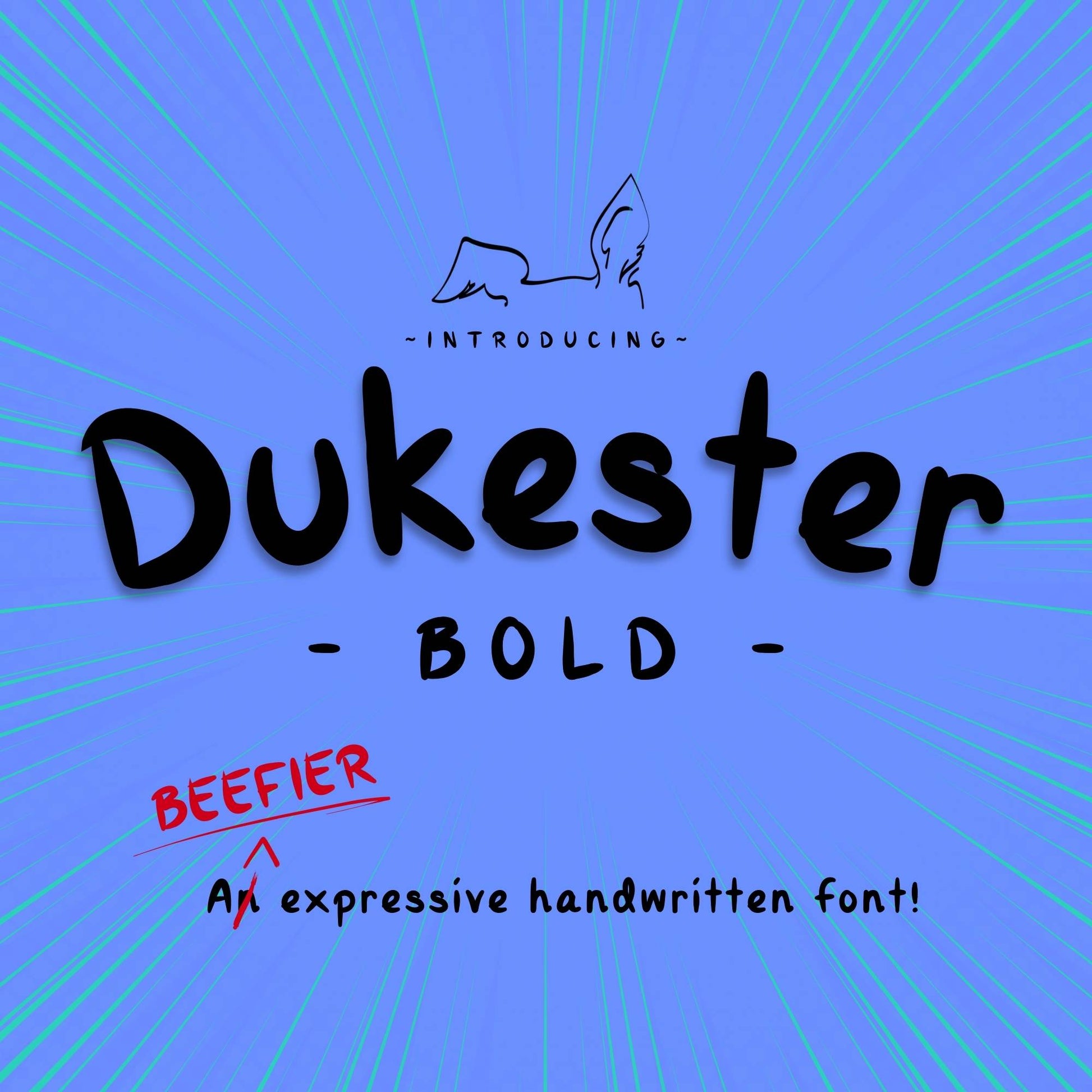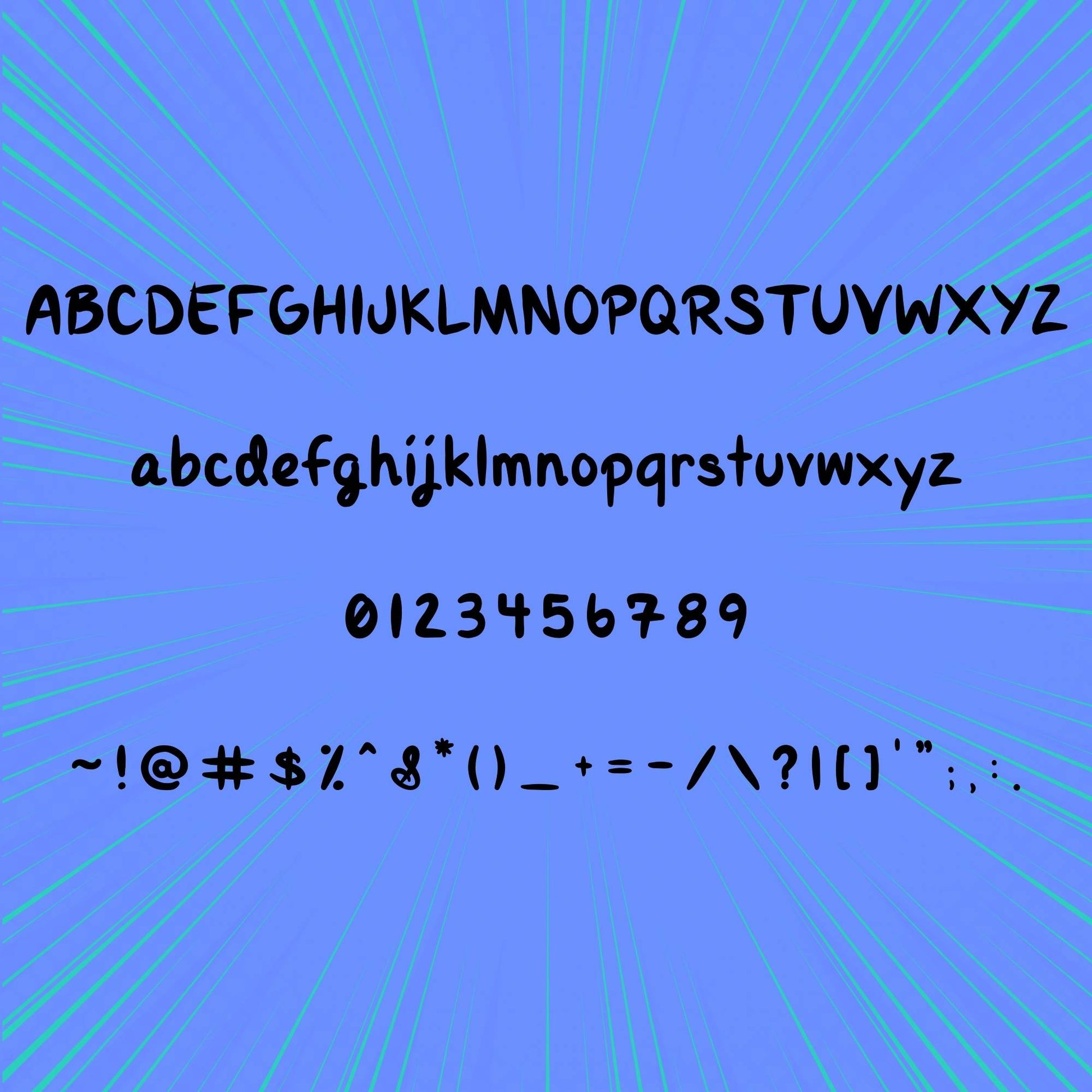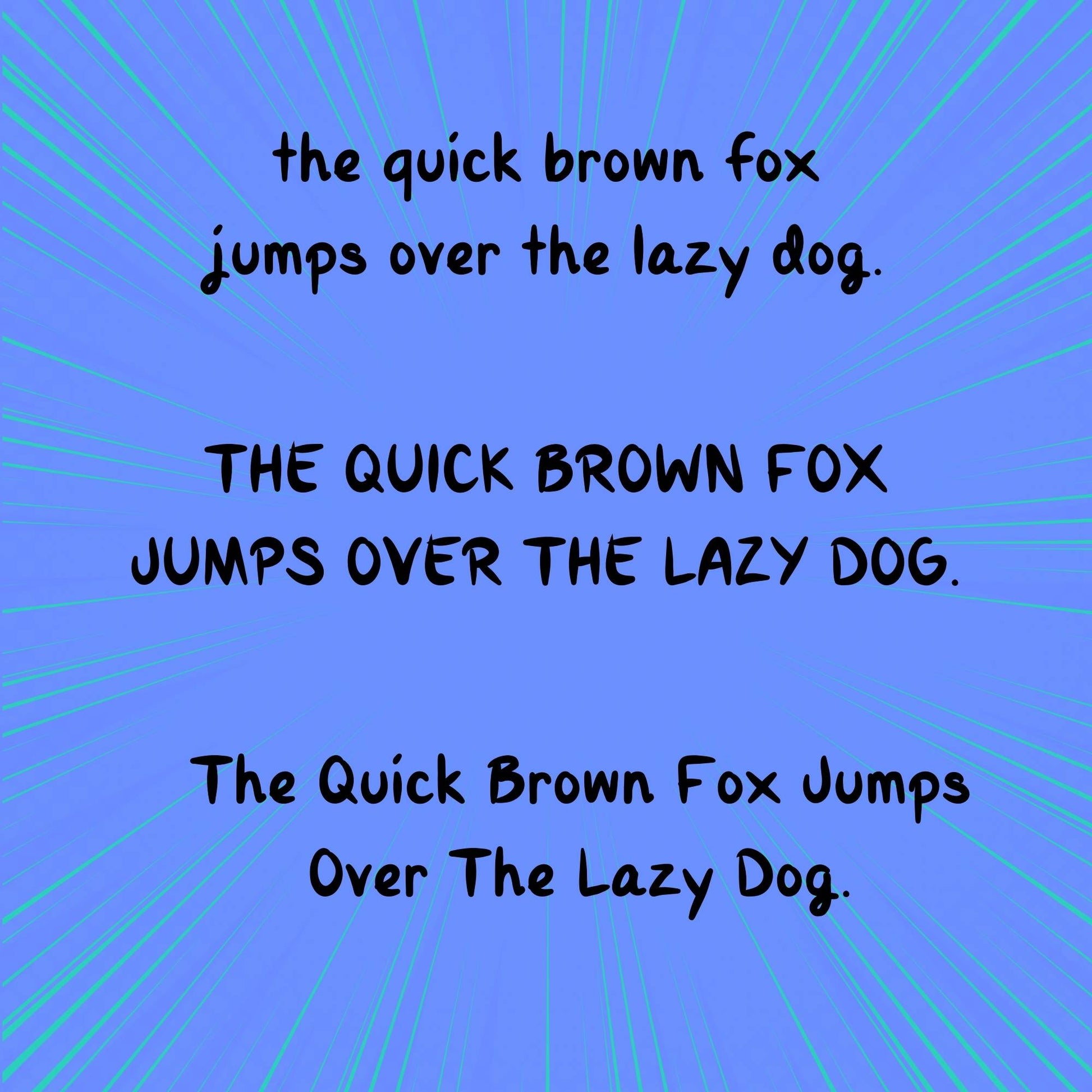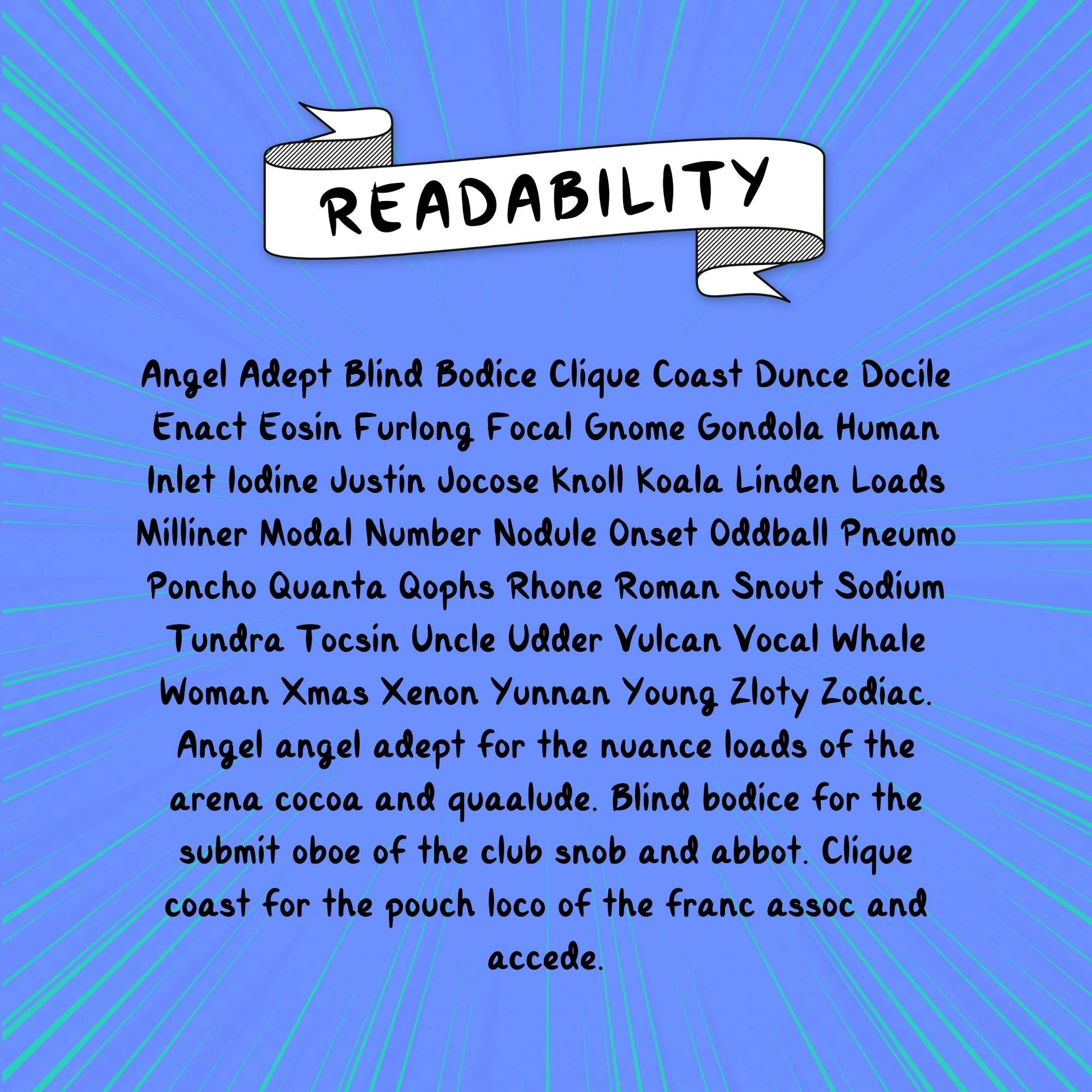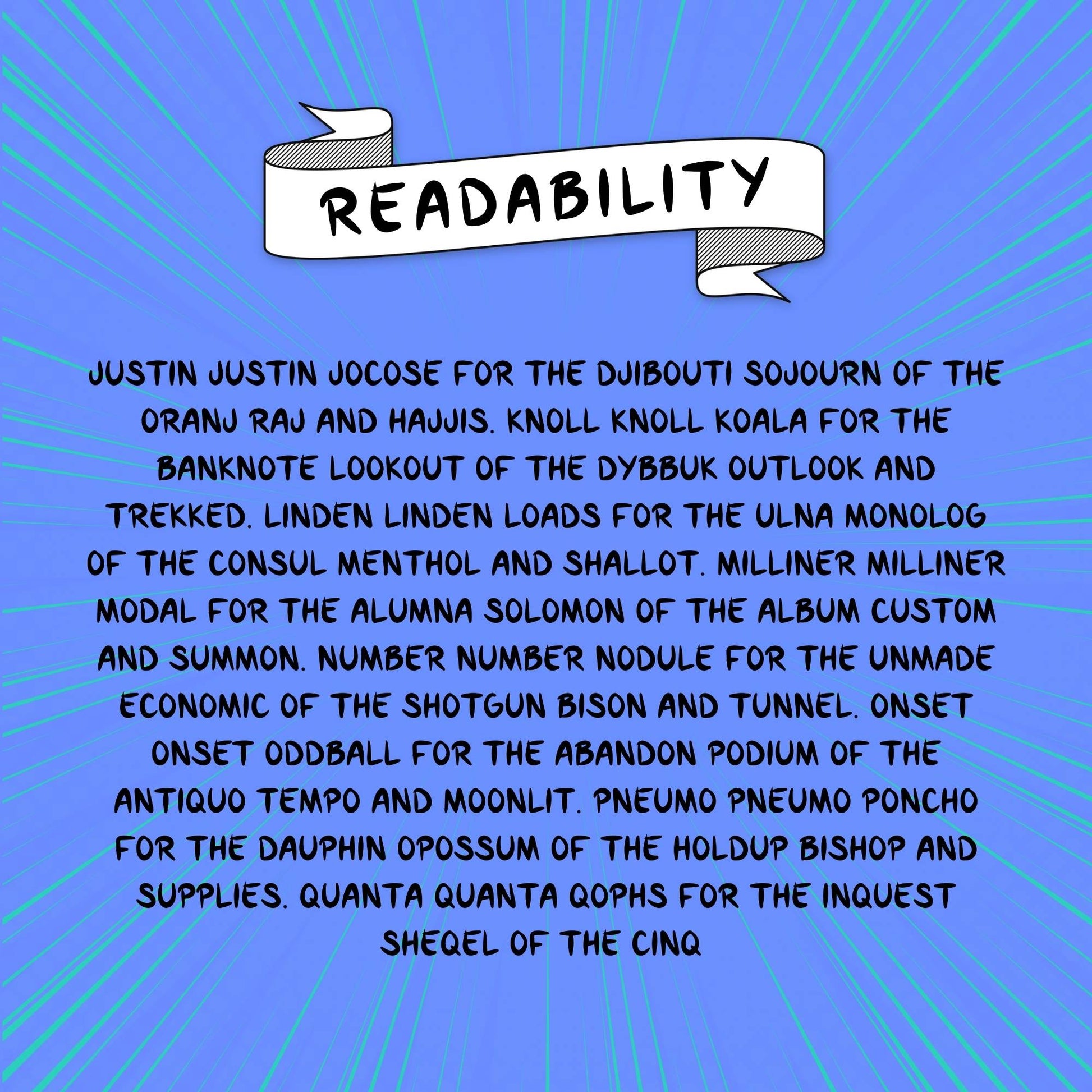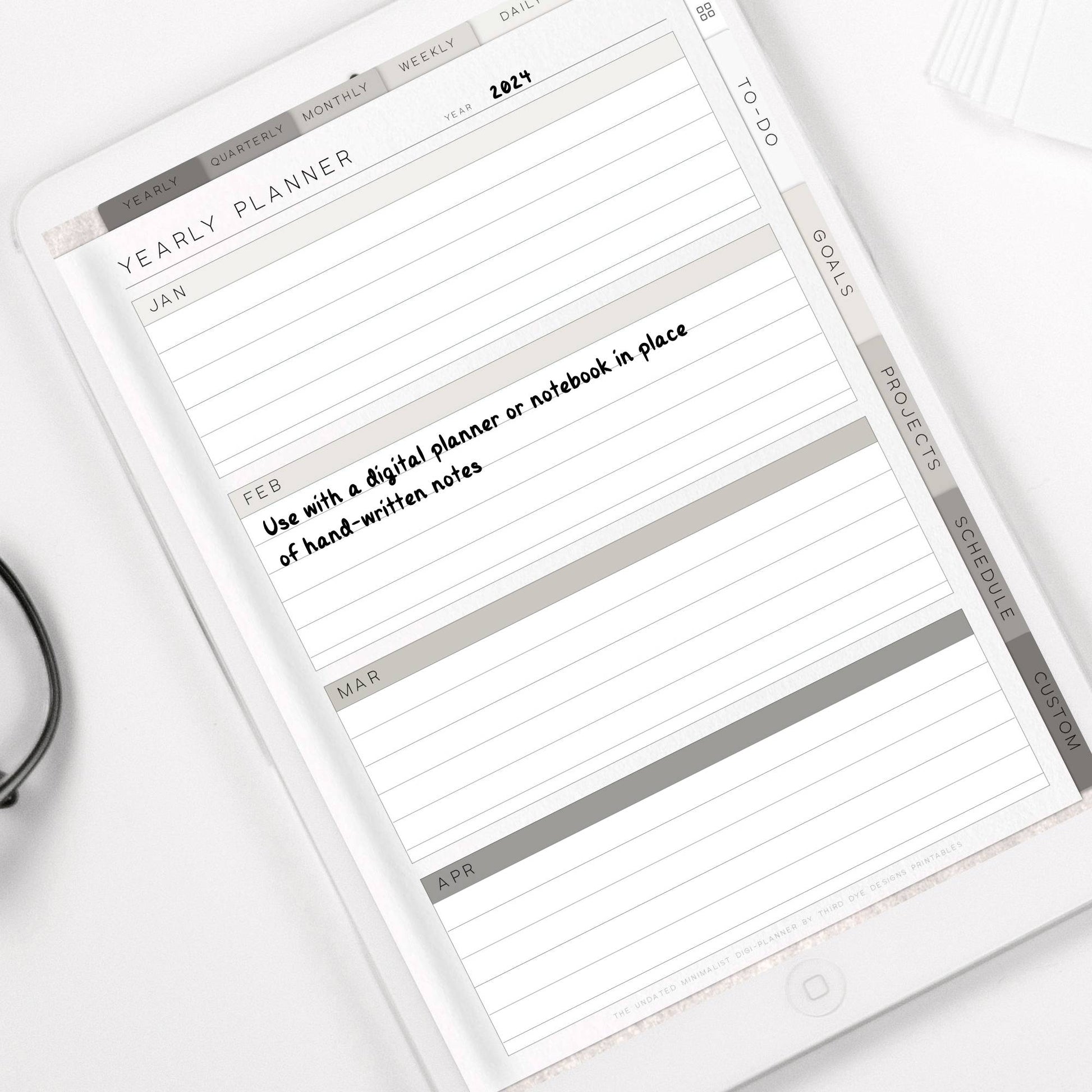
Introducing: Dukester-Bold
A beefier expressive handwritten font
This font is unique in that I created it from my handwriting and it is 100% original.